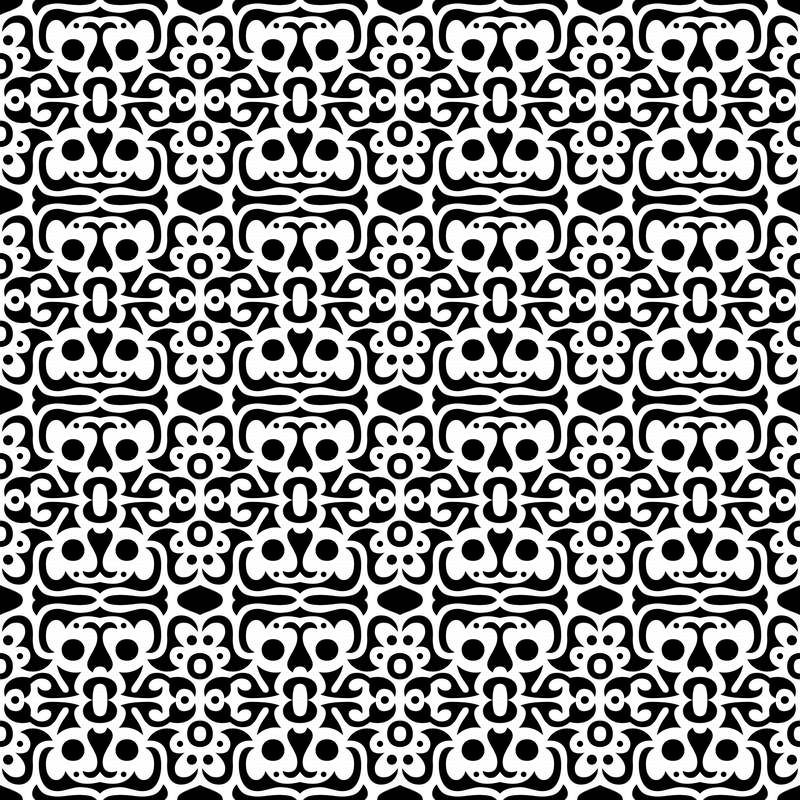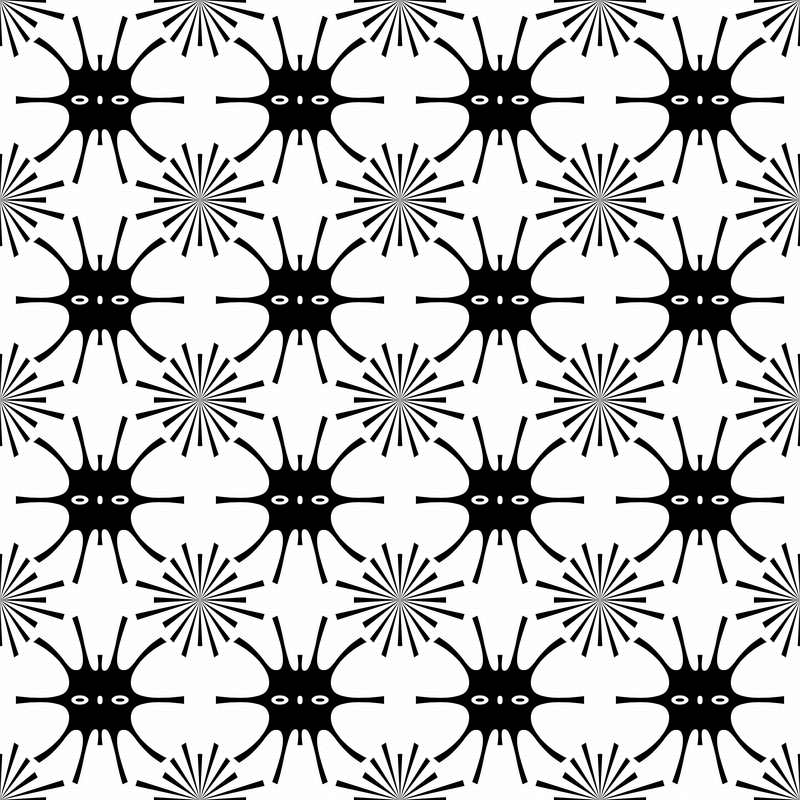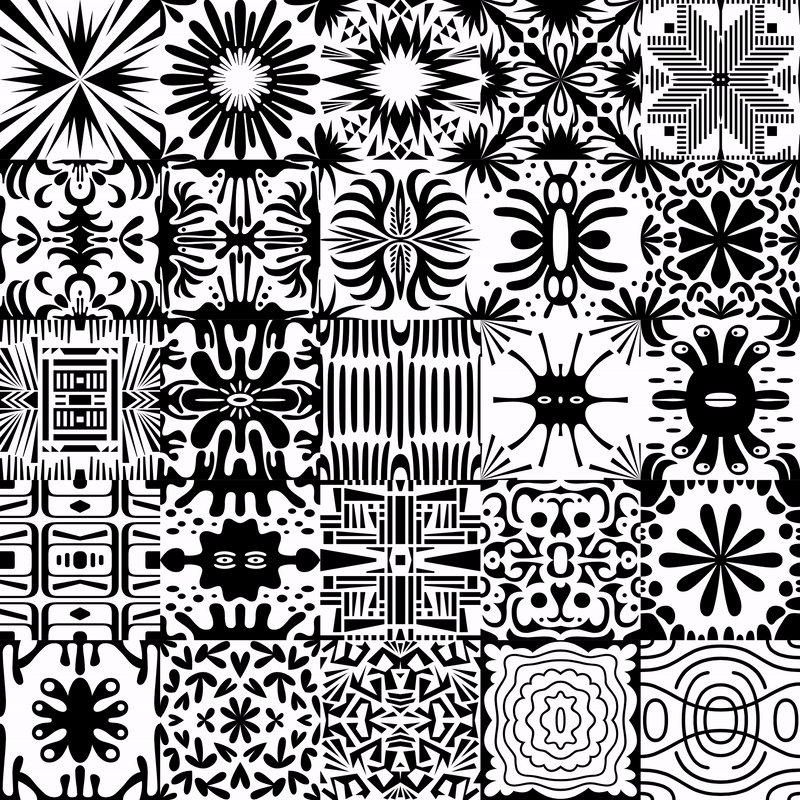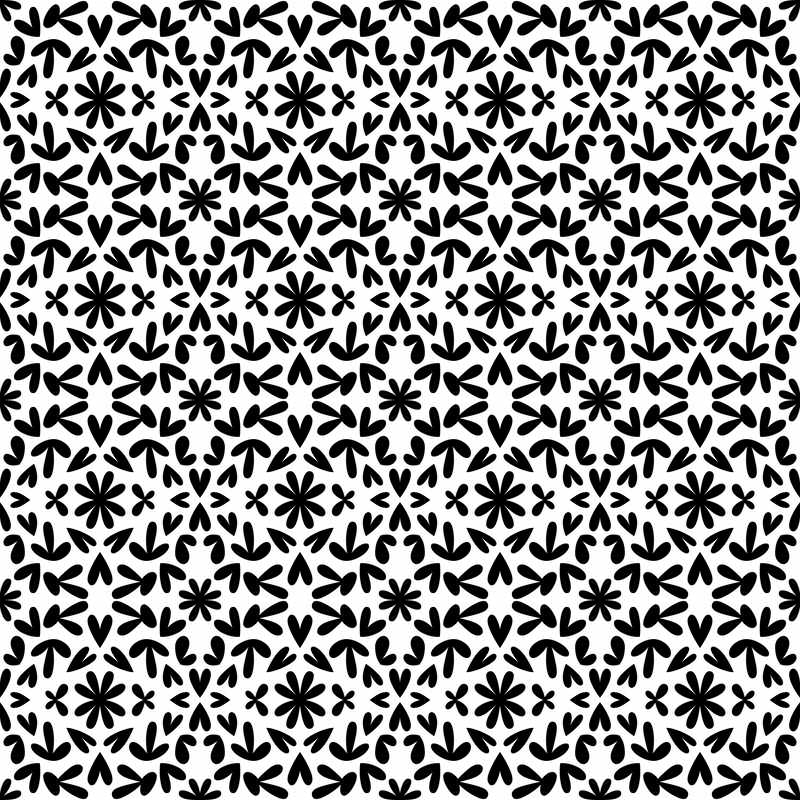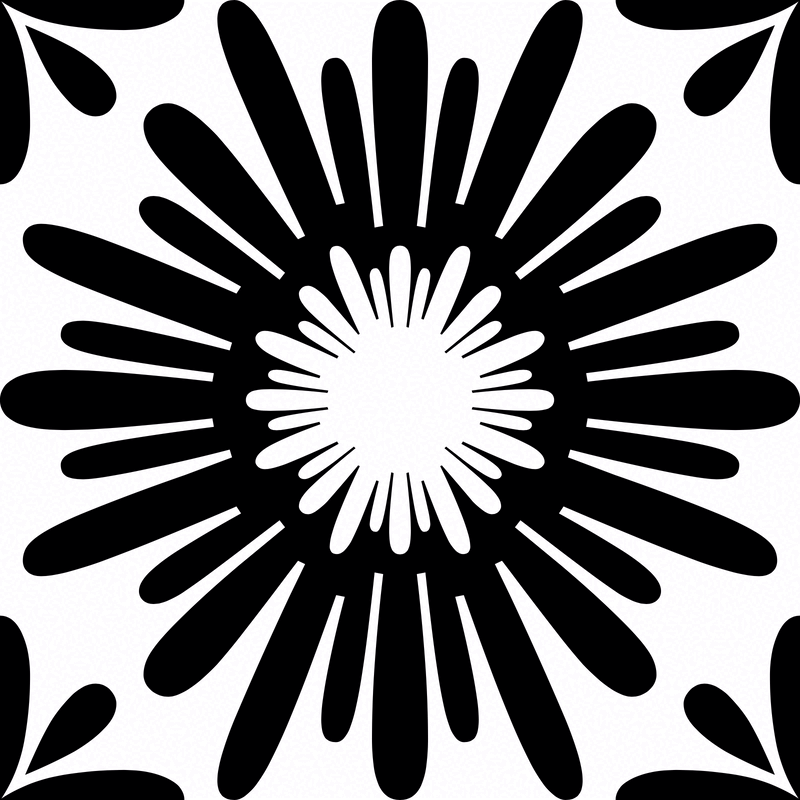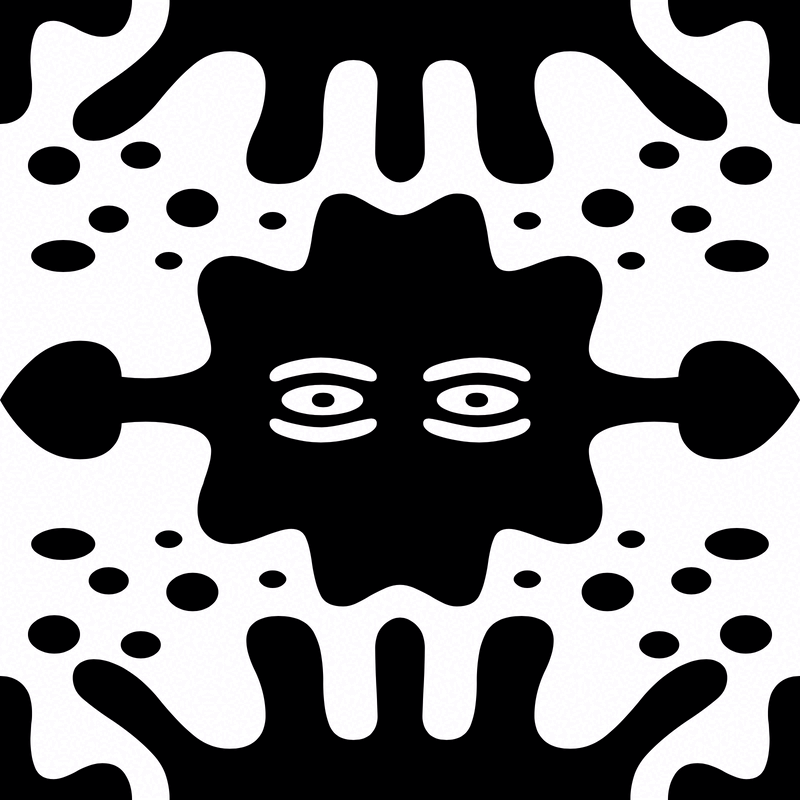
BLAST Pattern Mix 1
▶ Designed by Barbara Bigosińska, Diana Ovezea, 2023 ◀
BLAST Pattern Mix 1 is a free set of decorative drawings fitted into a square format. It started out of the need to draw something other than letters. Some of the patterns are inspired by nature: fauna and flora, whereas the others are built from geometric shapes. With this mix we hope to give away something inspiring to our colleagues graphic designers. This set of patterns is protected under the Creative Commons Licence: Attribution-NoDerivatives 4.0 International (CC BY-ND 4.0).